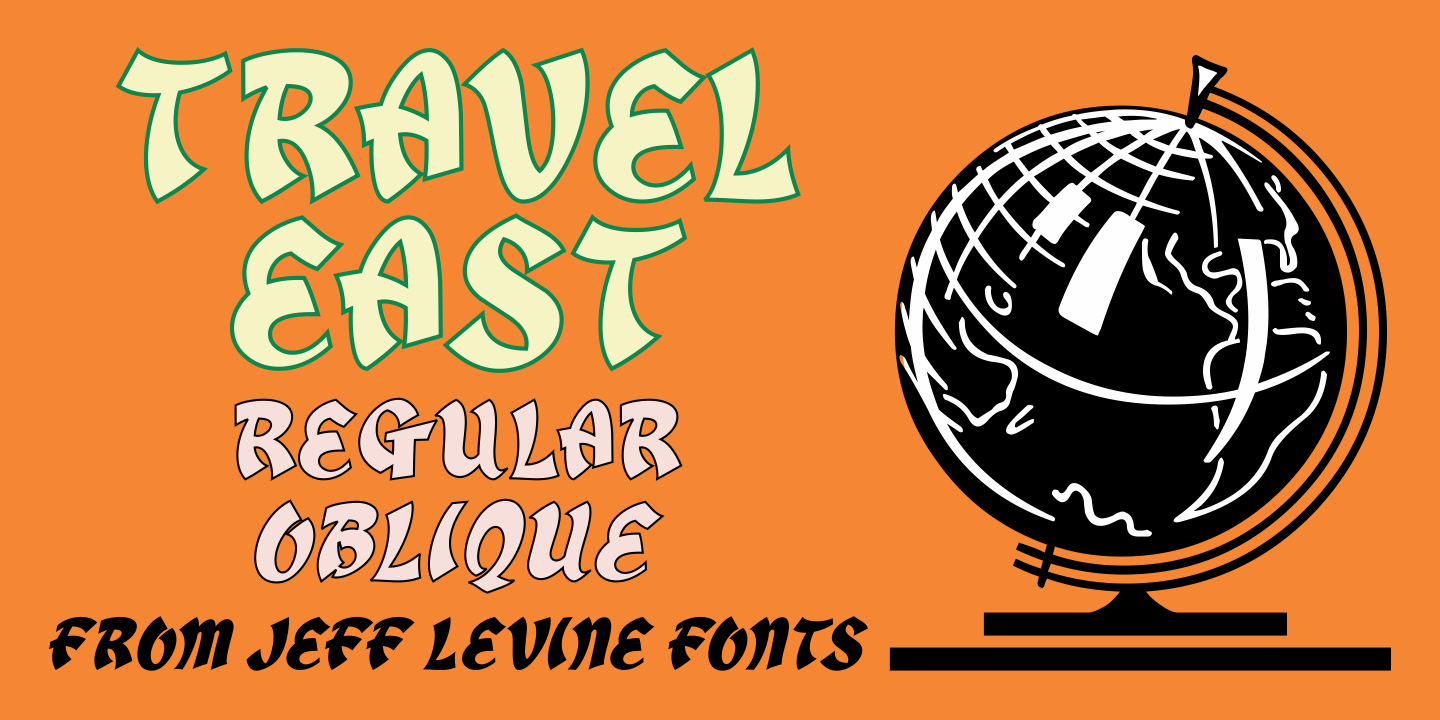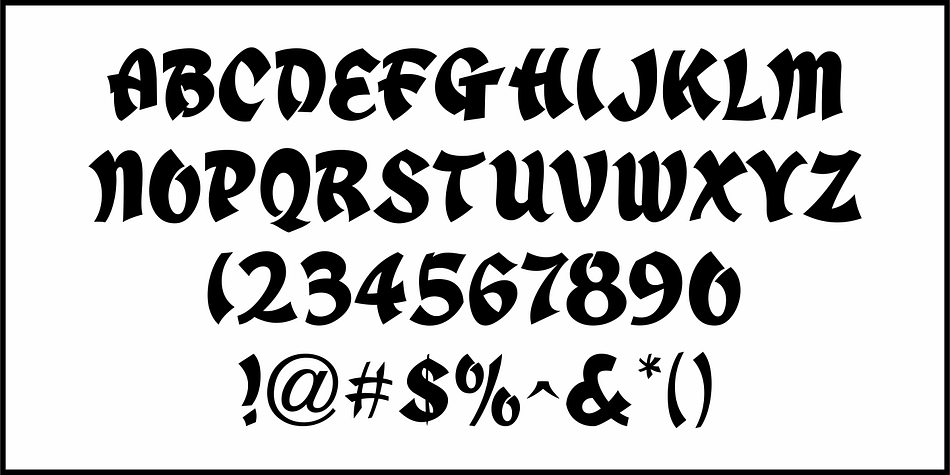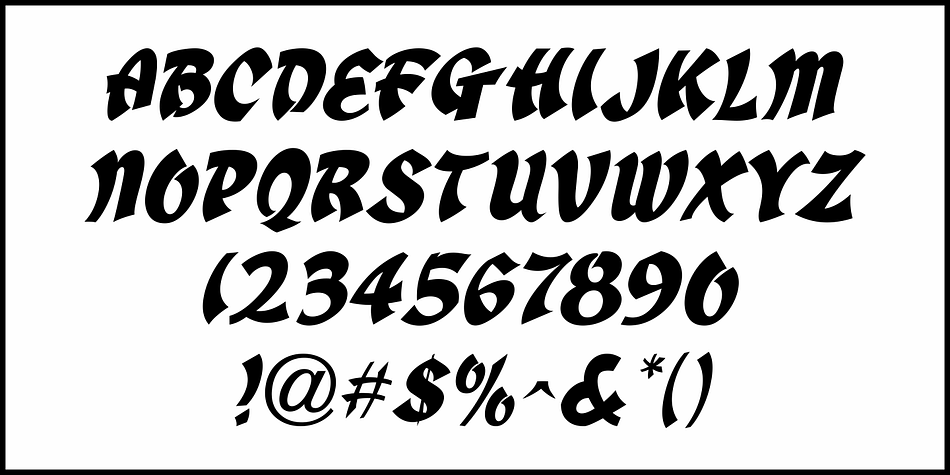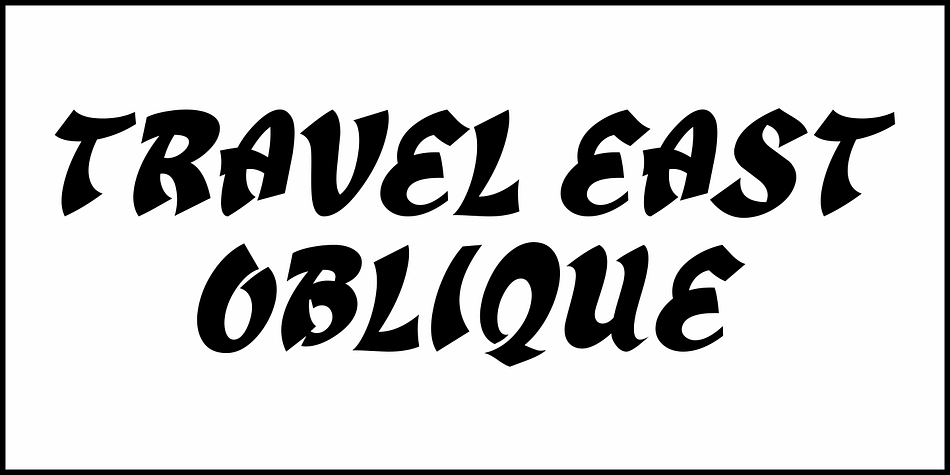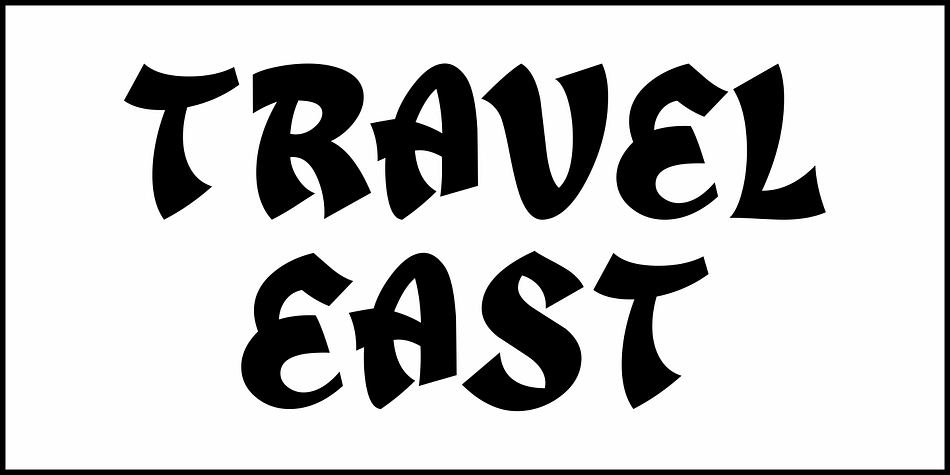
TRAVEL EAST JNL
Designed by Jeff Levine, Travel East JNL is a brush display and display sans font family. This typeface has two styles and was published by Jeff Levine Fonts.
“Tropical Type” was Alf Becker’s 148th submission to “Signs of the Times” magazine (a publication for the sign trade) where for years Becker would provide a monthly lettering design to inspire other sign writers.
This particular design has more of a Far East flair to it, and was redrawn digitally as Travel East JNL, which is available in both regular and oblique versions.